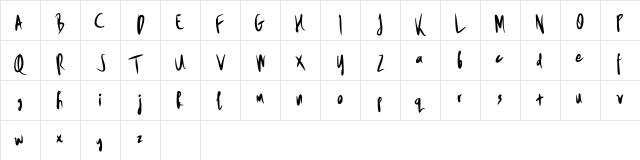
Drop Out Demo Regular
Design Context for Drop Out Demo Typeface
Drop Out Demo is a composed and adaptable typeface that performs quietly and consistently across a wide range of design contexts.